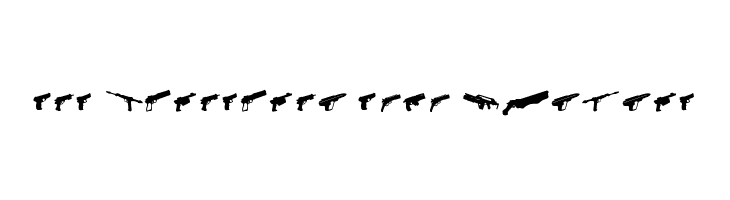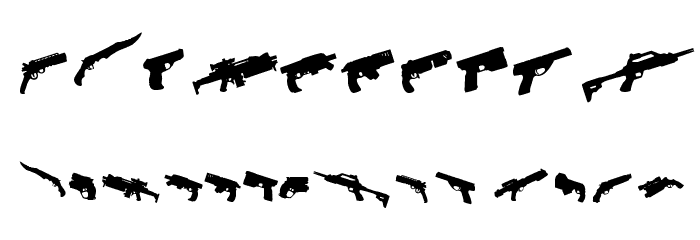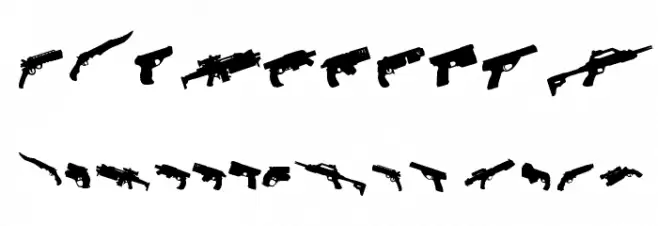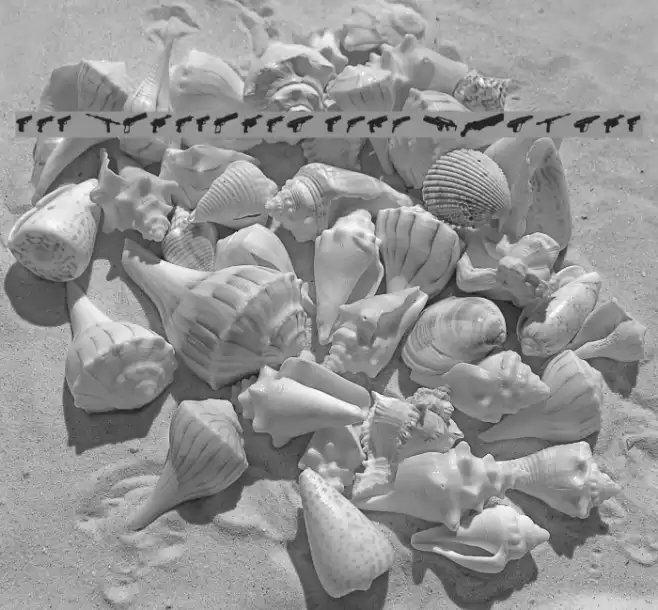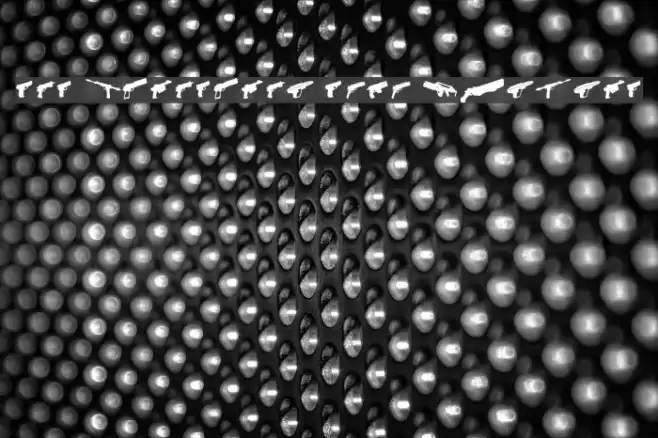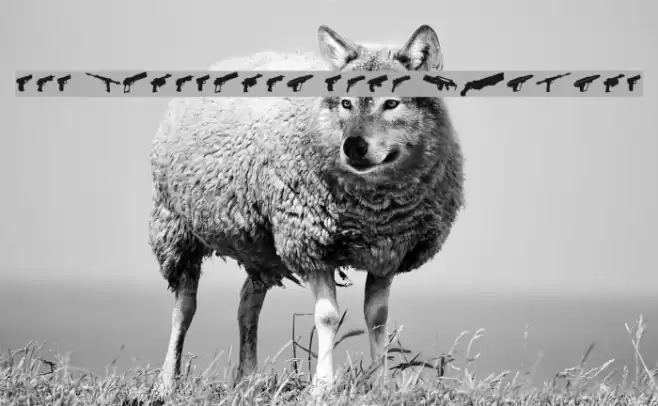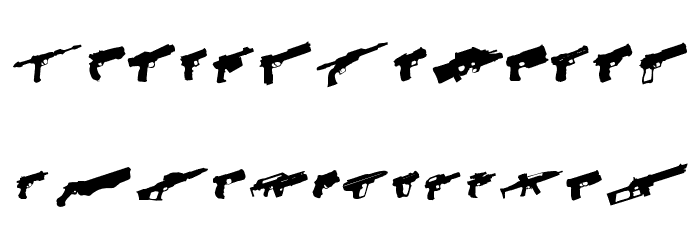
2nd Amendment 2050 Rotated Font
2nd Amendment 2050 Rotated Description
A decorative display typeface where each character is represented by a unique silhouette of a firearm, with a consistent black fill and no internal detail. The glyphs are highly stylized and non-traditional, prioritizing visual impact over legibility.
| Overall Style | Decorative, Thematic, Novelty |
| Use Case | Headlines, Posters, Themed graphics, Not suitable for body text |
| Proposed Projects | Posters, protest art, themed event graphics, video game titles, novelty designs. |